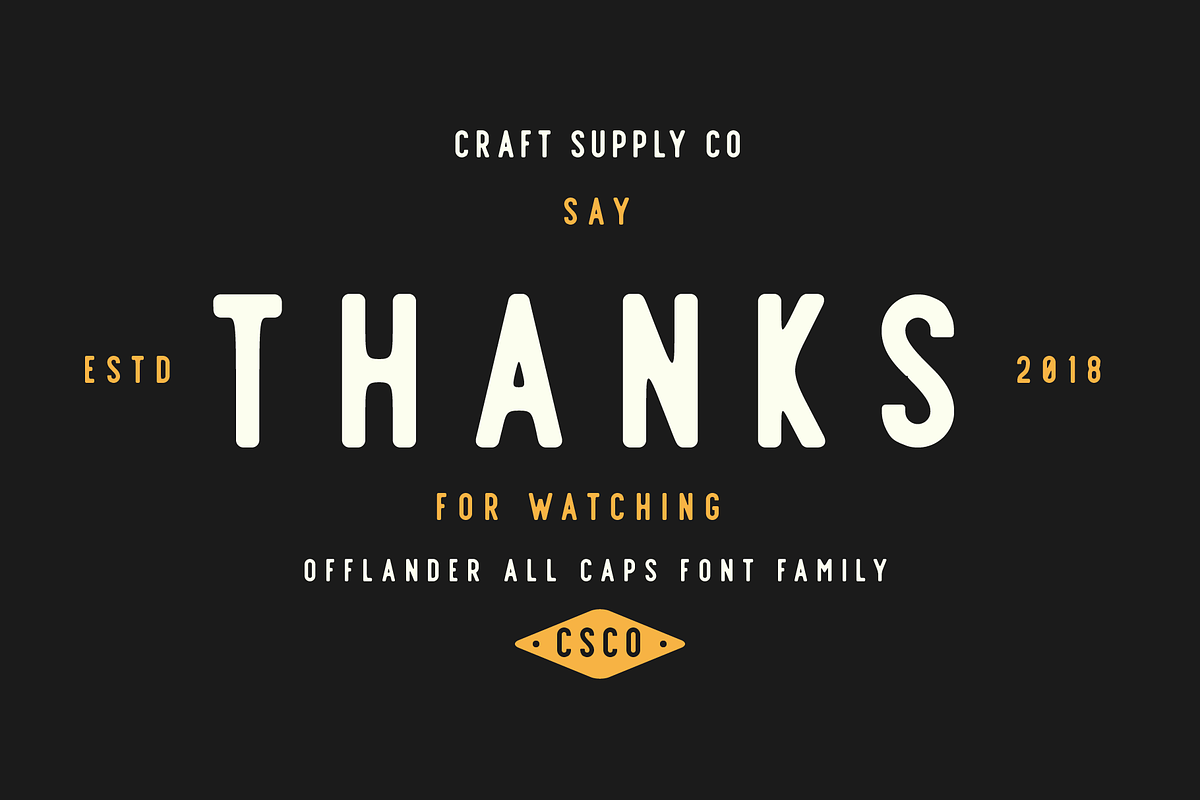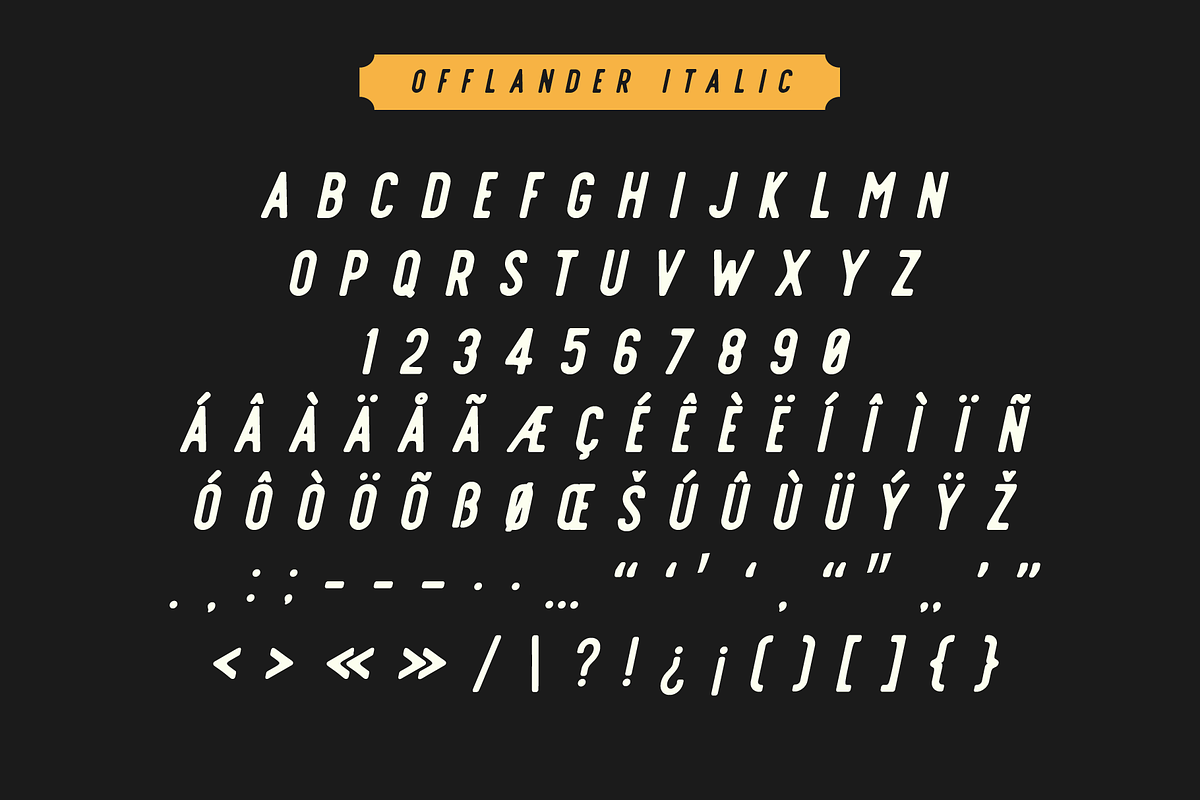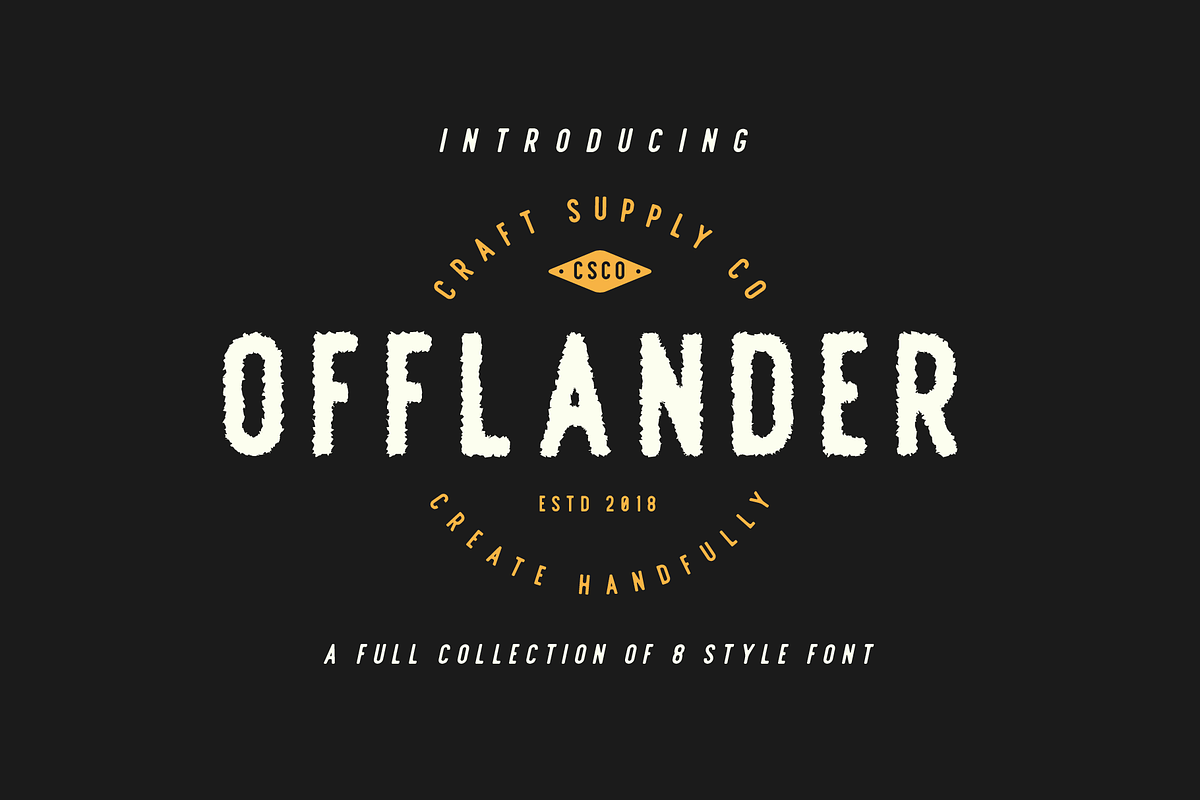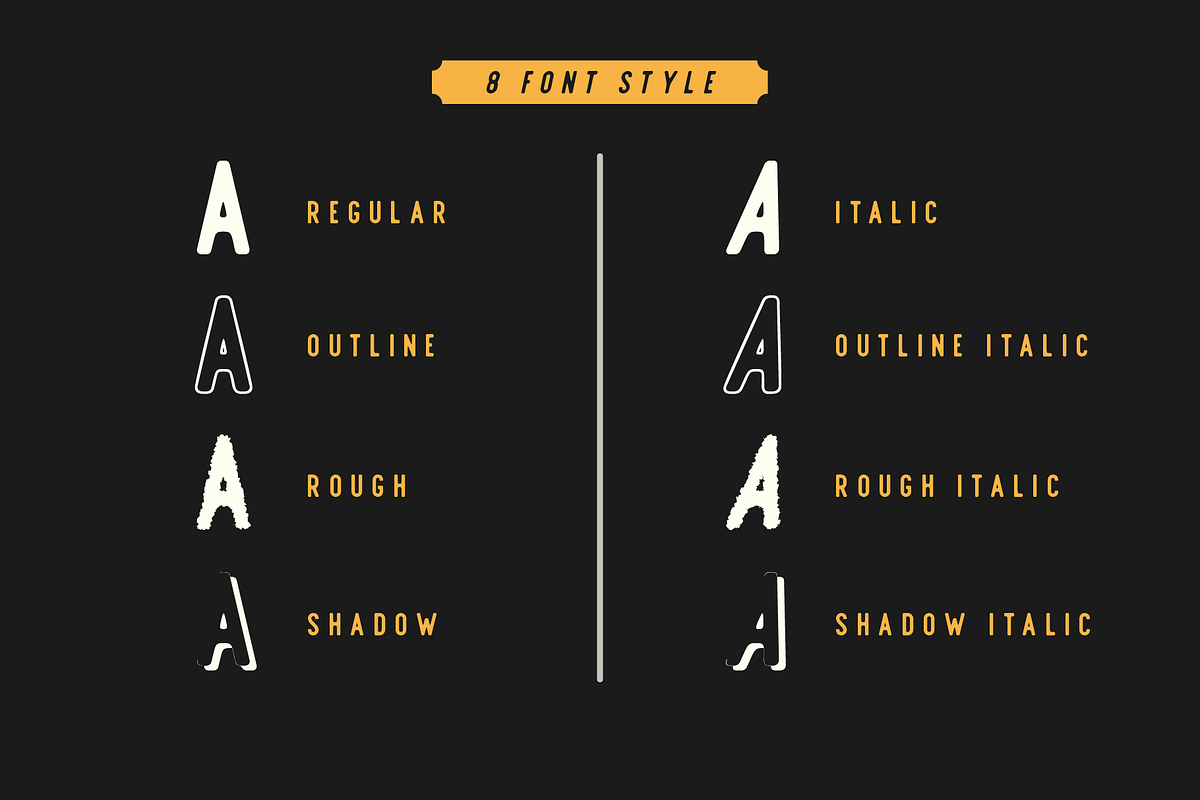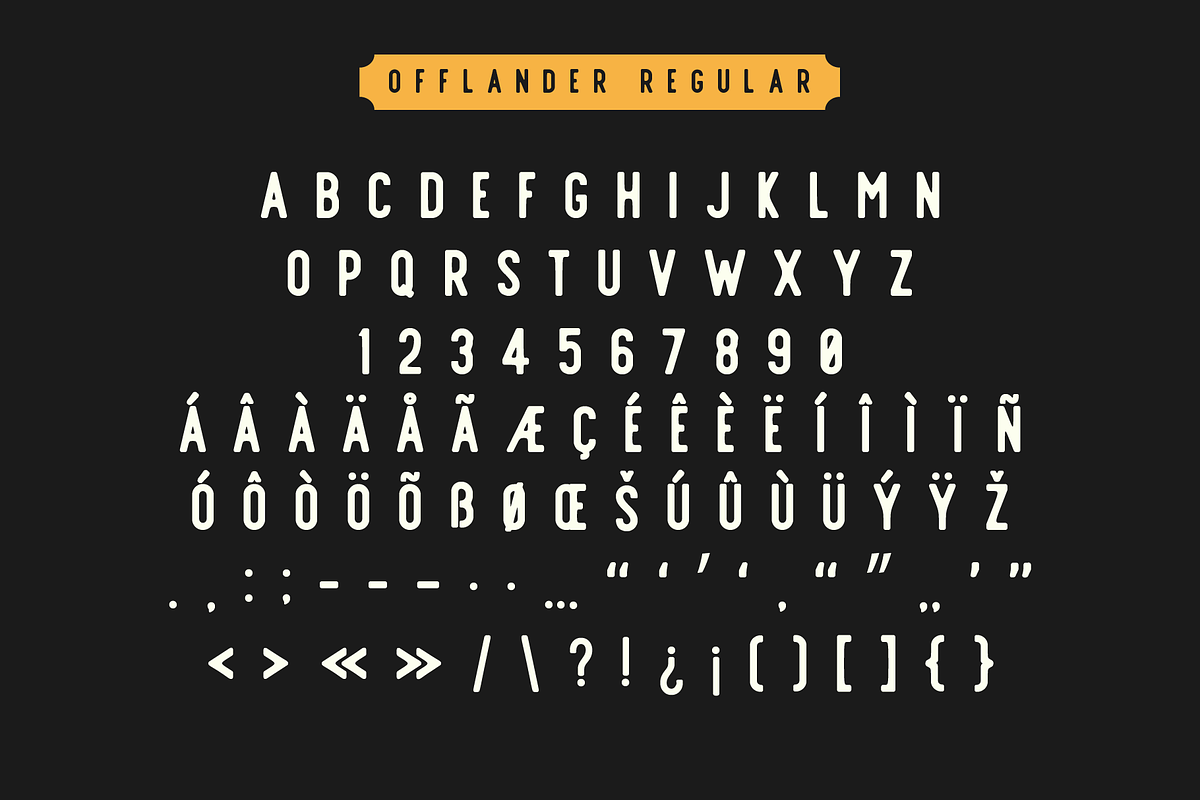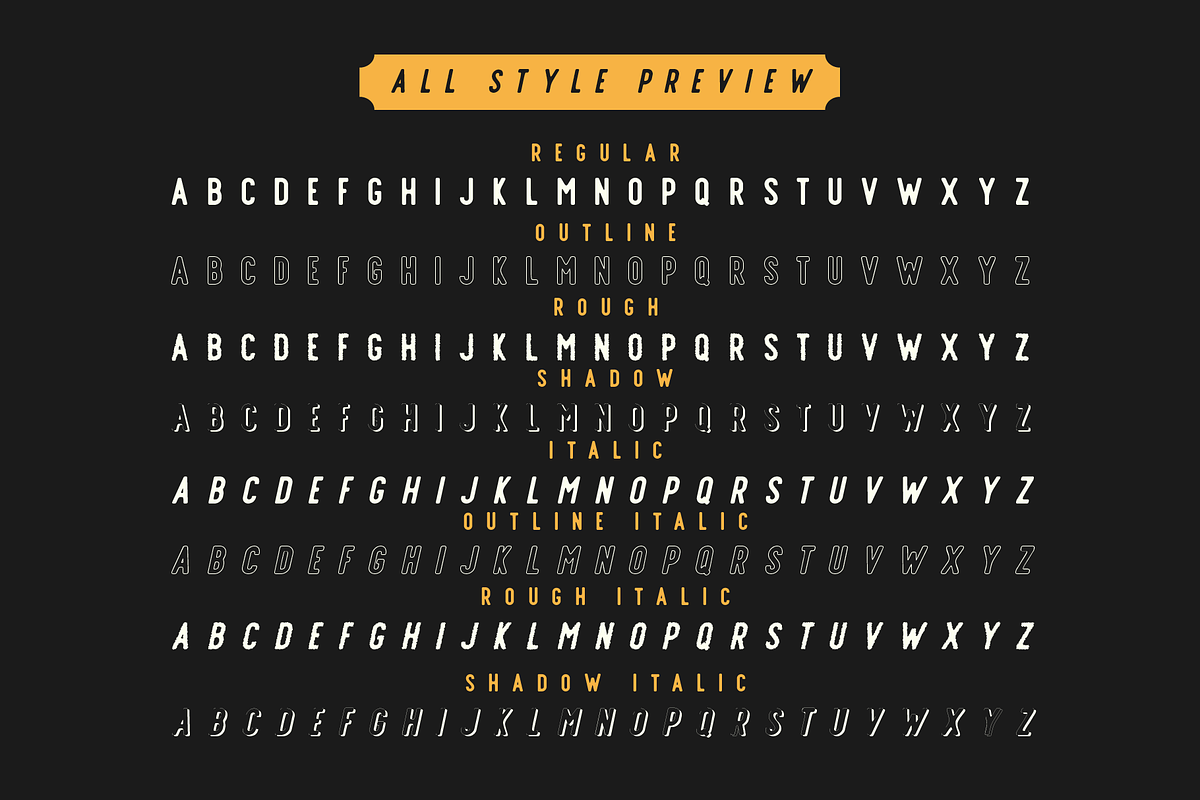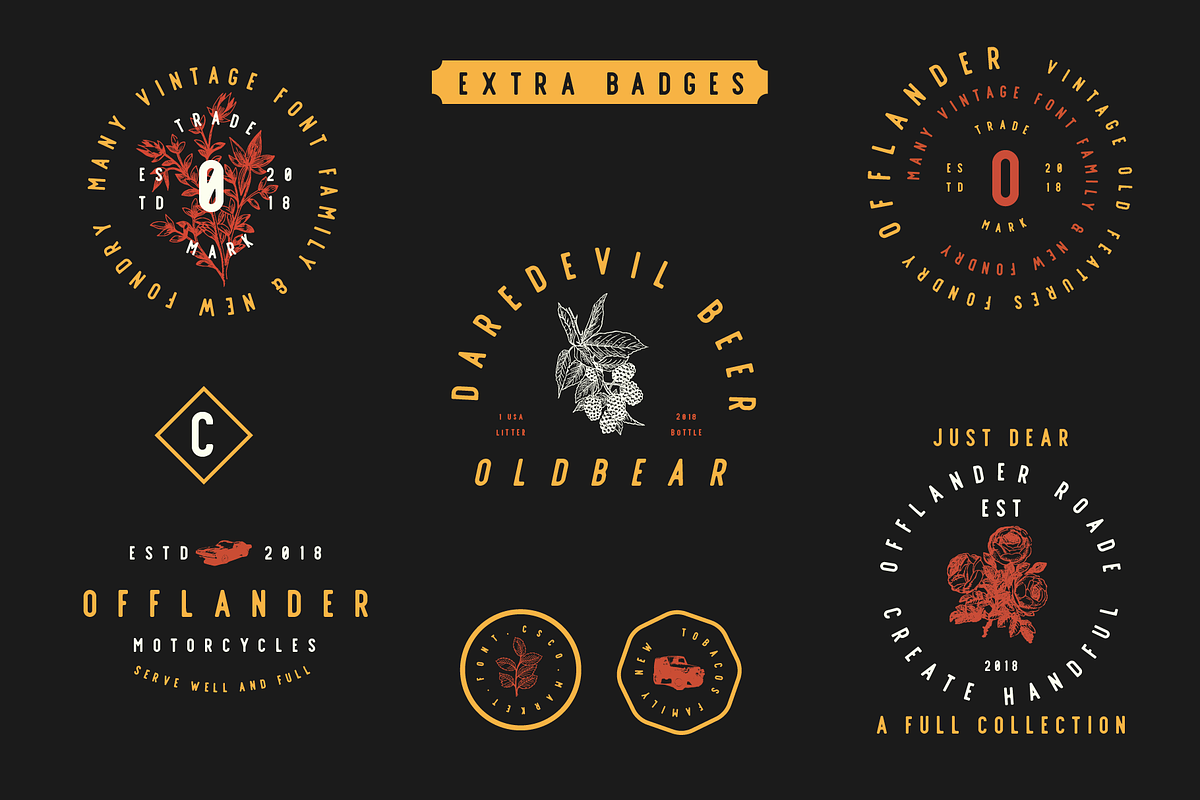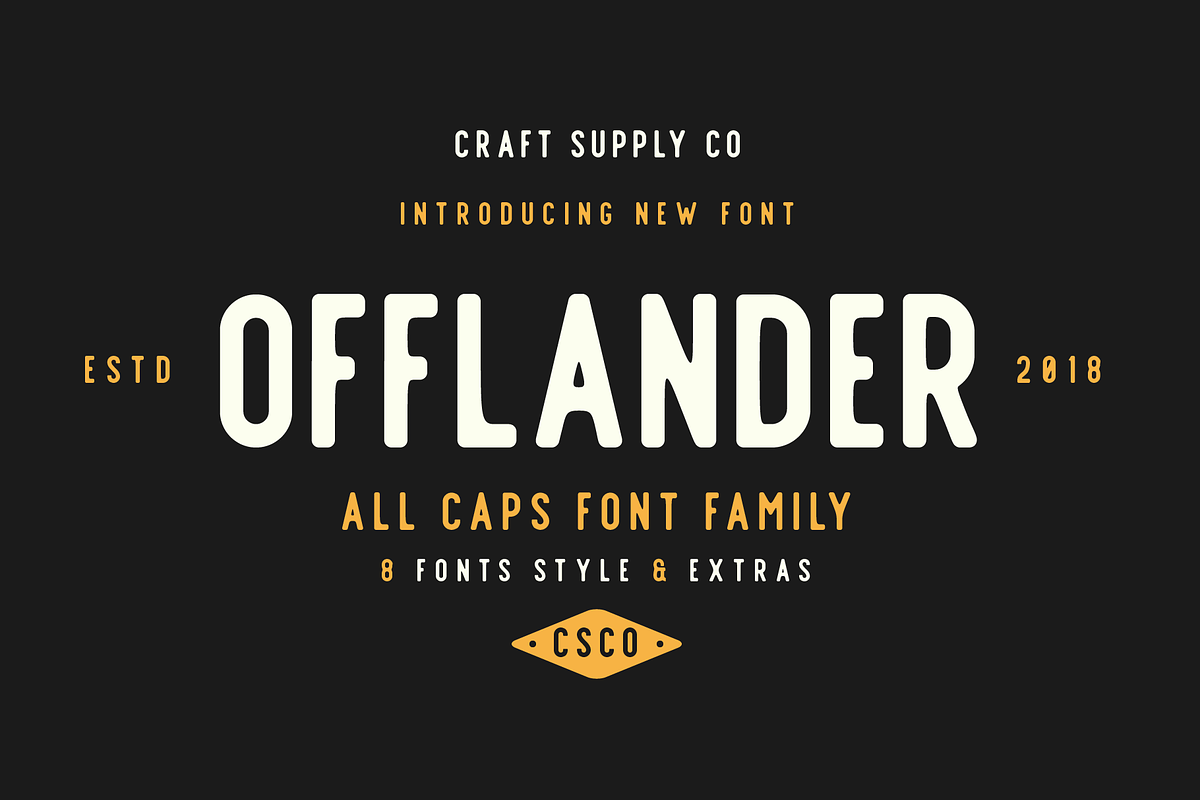
Offlander - Font Family
Introducing Offlander - All Caps Font Family includes 8 Style Fonts.
Offlander - All Caps Font Family can be used to create almost all types of design projects like print materials. Just use your imagination and some graphic design set in Extras, your project will become more alive and look great than ever with one of the Offlander - All Caps Font Family.
You want to make a greeting card or a package design, or even a brand identity, craft design, any DIY project, book title, wedding font, pop vintage design, retro design or any purpose to make your art / design project look pretty and trendy? Feel free to play with all the patterns and shape!
- Offlander Regular
- Offlander Outline
- Offlander Rough
- Offlander Shadow
- Offlander Italic
- Offlander Outline Italic
- Offlander Rough Italic
- Offlander Shadow Italic
Offlander - Font Family by Craft Supply Co. fits naturally into Branding, posters, packaging, typography.